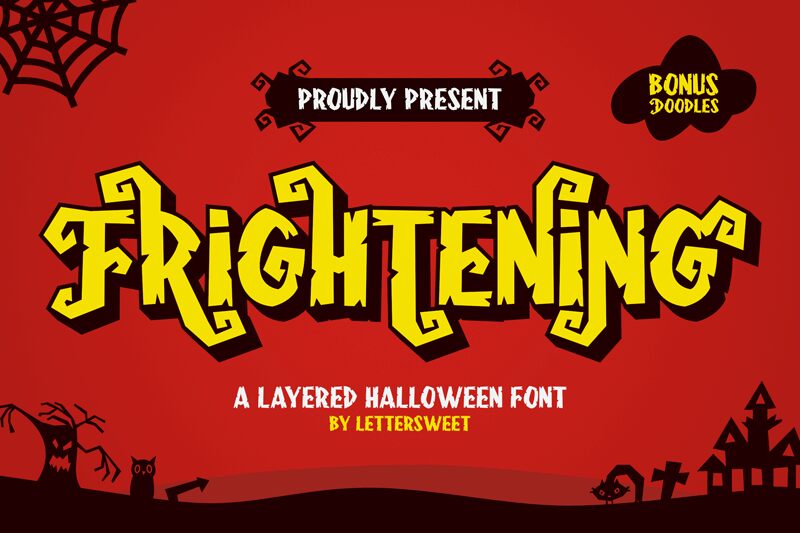
Frightening font is a decorative and highly original typeface from Lettersweet Studio. Inspired by modern retro visuals, its dramatic look gives it flair, attitude, and a very interesting artistic edge. This font combines subtlety and flamboyance to deliver visual aesthetics that are both balanced and stylish.
Frightening is bold, sweet, and monochrome, with several use cases deriving from these factors. It’s useful for digital and print ads, social media branding, TV branding, and comic book graphics. Further, use in posters, flyers, infographics, stickers, and juvenile billboard signage. Lastly, it can feature in animations, cartoons, and children’s movies.